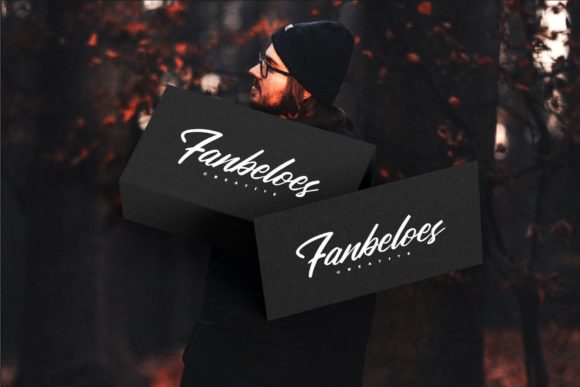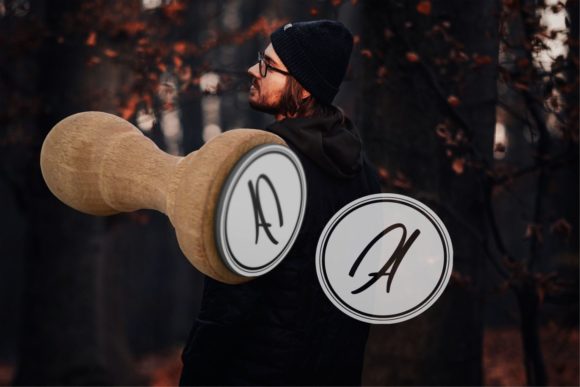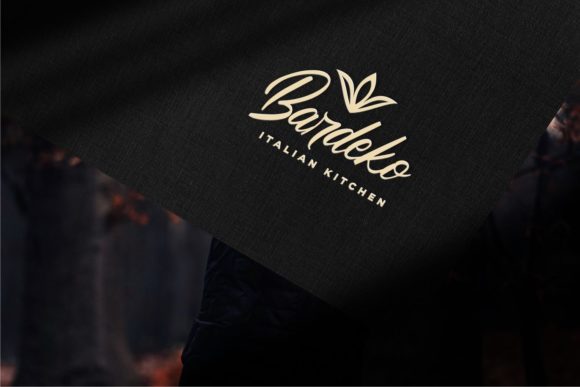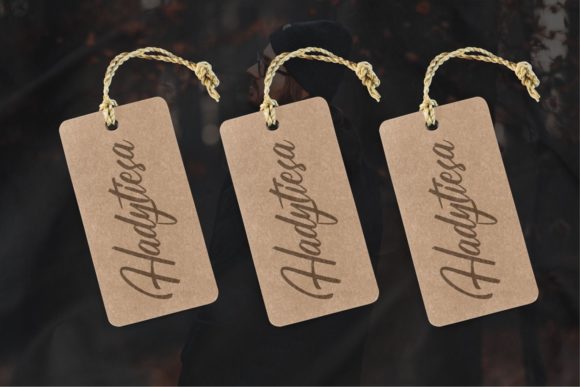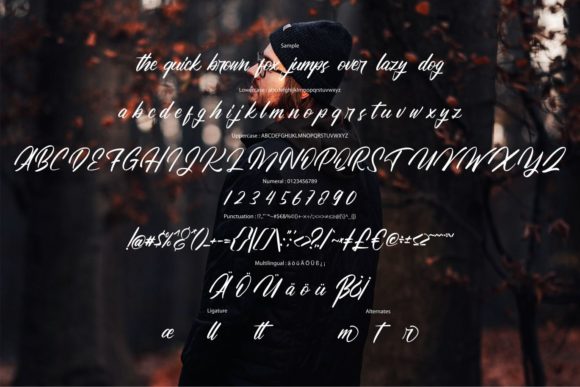
Discover the Elegance of Dalattiona Font: Elevate Your Designs with this Dazzling Script Font
In the world of typography, a font can make or break a design. It’s the perfect blend of style, elegance, and readability that can transform a simple creation into a masterpiece. If you’re a designer, craftsperson, or simply a creative enthusiast, you’re likely always on the lookout for that perfect font to elevate your work. This is where Dalattiona Font comes into play – a dazzling script font that promises to be a wonderful asset to your font library, capable of enhancing any creation you throw at it.
What is Dalattiona Font?
Dalattiona Font is a modern script font that exudes elegance and sophistication. Its fluid strokes and beautiful ligatures make it perfect for a wide range of design projects, from wedding invitations and branding materials to packaging and digital content. The font’s unique charm lies in its ability to add a touch of personality to any text, making it stand out in a sea of more conventional typefaces.
Key Features of Dalattiona Font
• Unique and Elegant Design: Dalattiona boasts a distinctive, hand-crafted look that is both elegant and eye-catching.
• High Readability: Despite its decorative nature, Dalattiona maintains high readability, making it suitable for both headings and body text.
• Versatile: This font can be used across various design projects, including but not limited to, logos, branding, web design, and print materials.
• Easy to Use: Dalattiona is compatible with most design software, making it easy to integrate into your workflow.
Why Choose Dalattiona Font?
The decision to choose a font for your design project can be overwhelming, given the numerous options available. However, Dalattiona Font stands out for several reasons:
• Enhances Creativity: With its unique and stylish appearance, Dalattiona can inspire creativity and add a fresh perspective to your designs.
• Time-Saving: The font’s versatility means you can use it across multiple projects, saving you time and effort in searching for different fonts.
• Professional Look: Dalattiona can give your designs a professional and polished look, which is crucial for attracting and retaining audience attention.
How to Use Dalattiona Font Effectively
To make the most of Dalattiona Font, consider the following tips:
• Pair it Wisely: Combine Dalattiona with simpler fonts to create contrast and hierarchy in your design.
• Play with Sizes: Use varying font sizes to emphasize certain parts of your text and create visual interest.
• Experiment with Colors: While Dalattiona looks great in black, experimenting with colors can add another layer of personality to your design.
Dalattiona Font is more than just a script font – it’s a tool that can elevate your designs, add elegance to your creations, and make your work stand out. Whether you’re a seasoned designer or a crafting enthusiast, Dalattiona has the potential to become your go-to font for a wide range of projects. Its unique design, versatility, and readability make it an excellent addition to any font library. So, why settle for ordinary when you can make your designs extraordinary with Dalattiona Font?
Embrace the elegance and sophistication that Dalattiona brings to the table, and watch your designs transform into stunning pieces of art that capture attention and inspire.